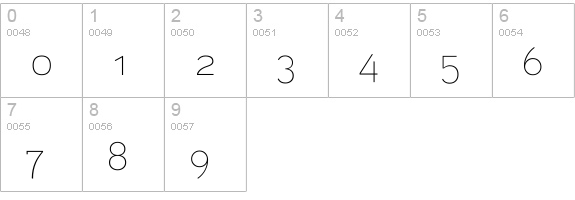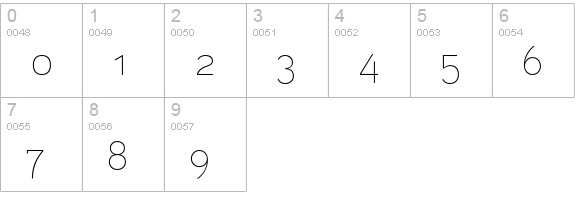
Aaux ProThin OSF Font Details
Aaux ProThin OSF is a sleek and modern font that exudes elegance and sophistication. With its thin and clean lines, this typeface is perfect for creating a minimalist and contemporary look in your designs. The proportions are carefully crafted to ensure readability while maintaining a sense of refinement. This font is perfect for a wide range of design projects, from branding and marketing materials to editorial layouts and web design. Its versatility allows it to adapt to various design styles, making it a valuable addition to any designer's toolkit. Best of all, Aaux ProThin OSF is available for free download at FontsMarket.com. Now you can elevate your designs with this beautiful font without breaking the bank. Download it today and add a touch of elegance to your next project!